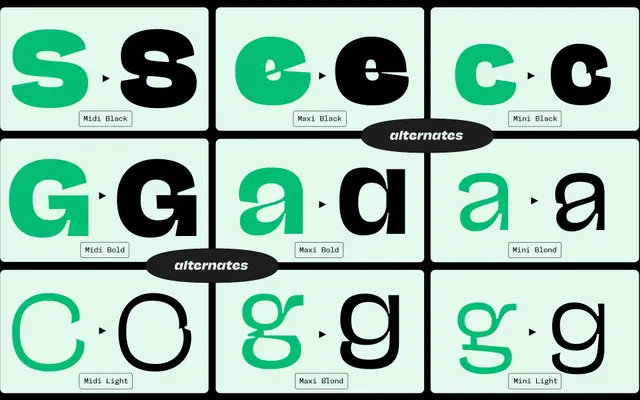
NaN Jaune
NaN · Jérémy Landes · 2016
A closed-aperture grotesque by Jérémy Landes that treats colliding glyph anatomy not as a flaw to avoid but as its central design premise, spread across three subfamilies from display Maxi to text-focused Mini.
Designed by Jérémy Landes between 2016 and 2022 with italic and Cyrillic by Vika Usmanova, Jaune inverts conventional type wisdom by deliberately pushing together anatomical elements that normally require clearance. Maxi is built for headlines with short extenders and extreme weight contrast from Thin to Black; Mini answers at the other end with open counters and deep ink traps for running text; Midi sits between the two as the general-purpose cut. The family covers 339 Latin-based and 16 Cyrillic-based languages.
A closed-aperture grotesque sans with deliberately colliding glyph anatomy, structured across three subfamilies (Maxi, Midi, Mini) with varying optical characteristics from display to text use.